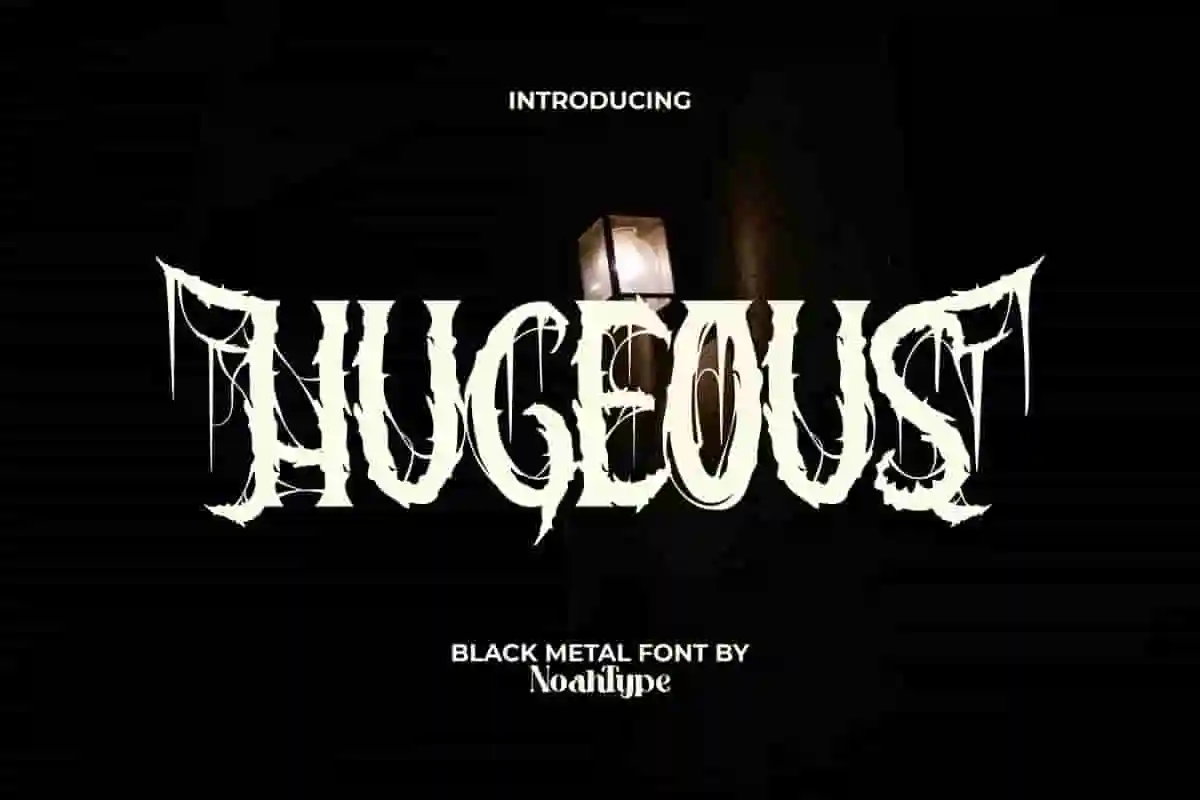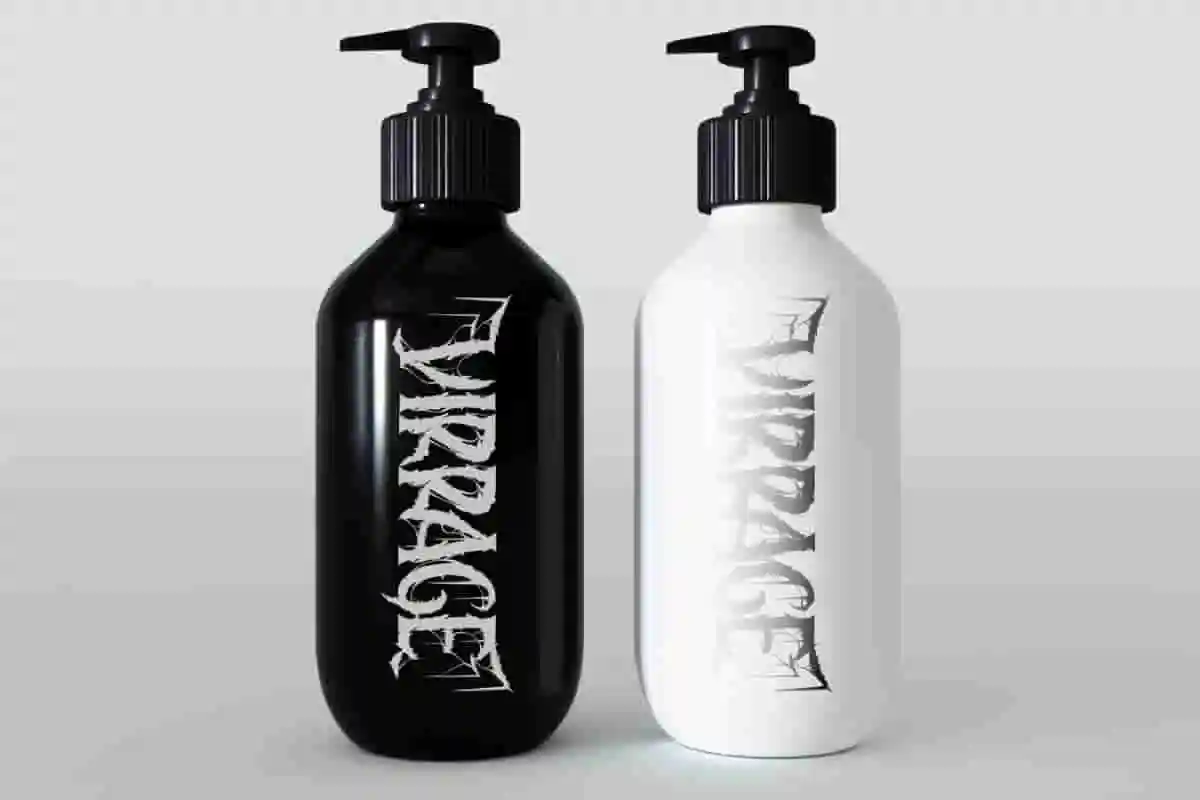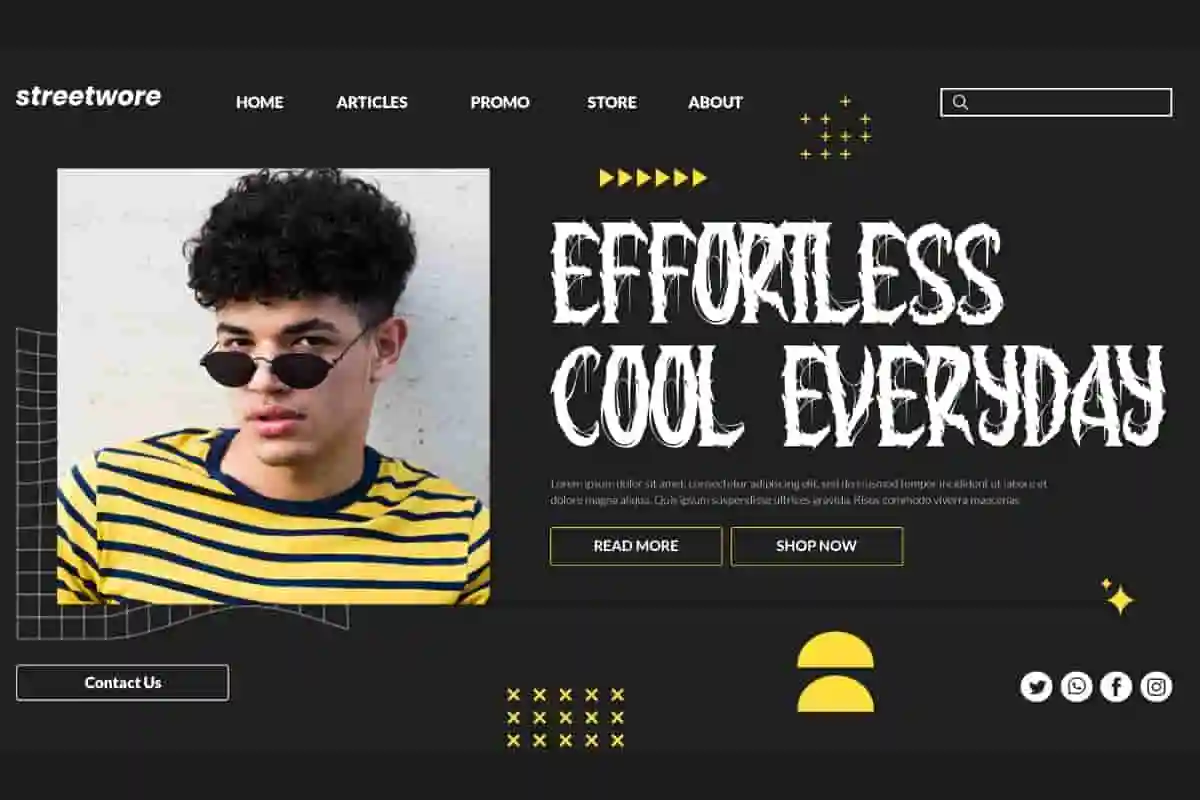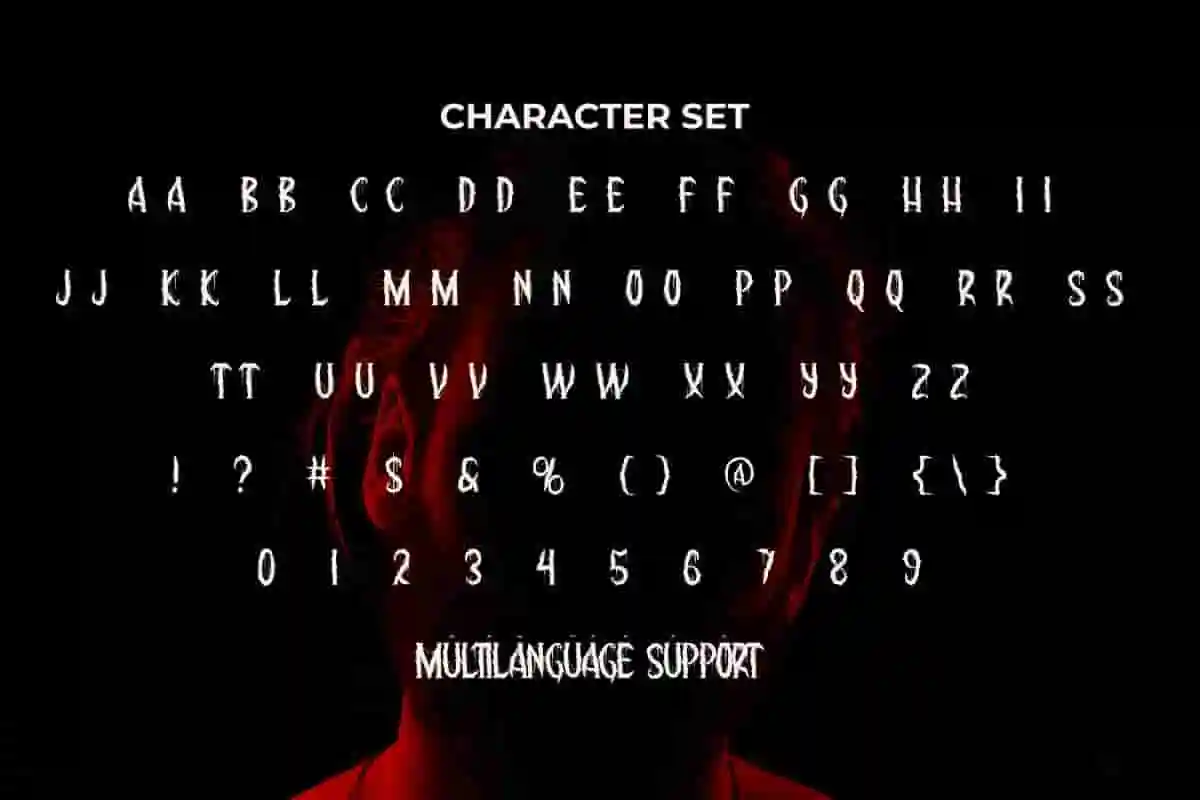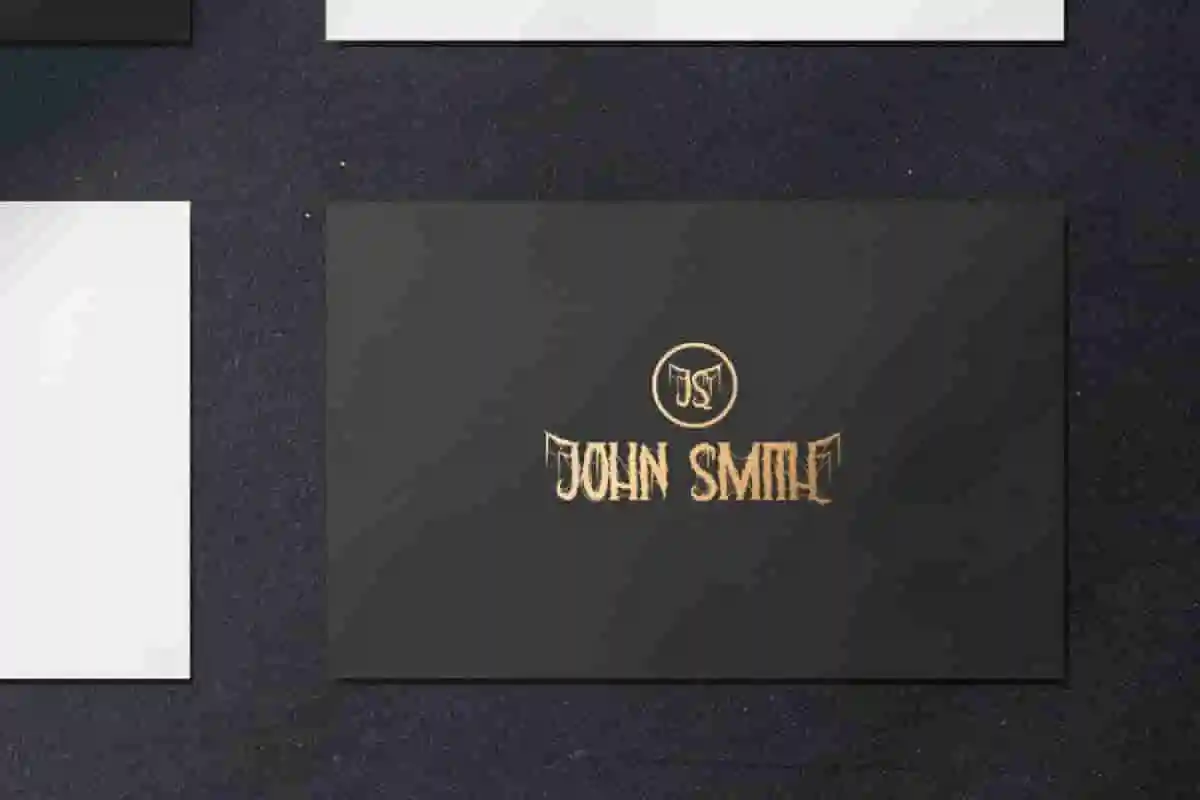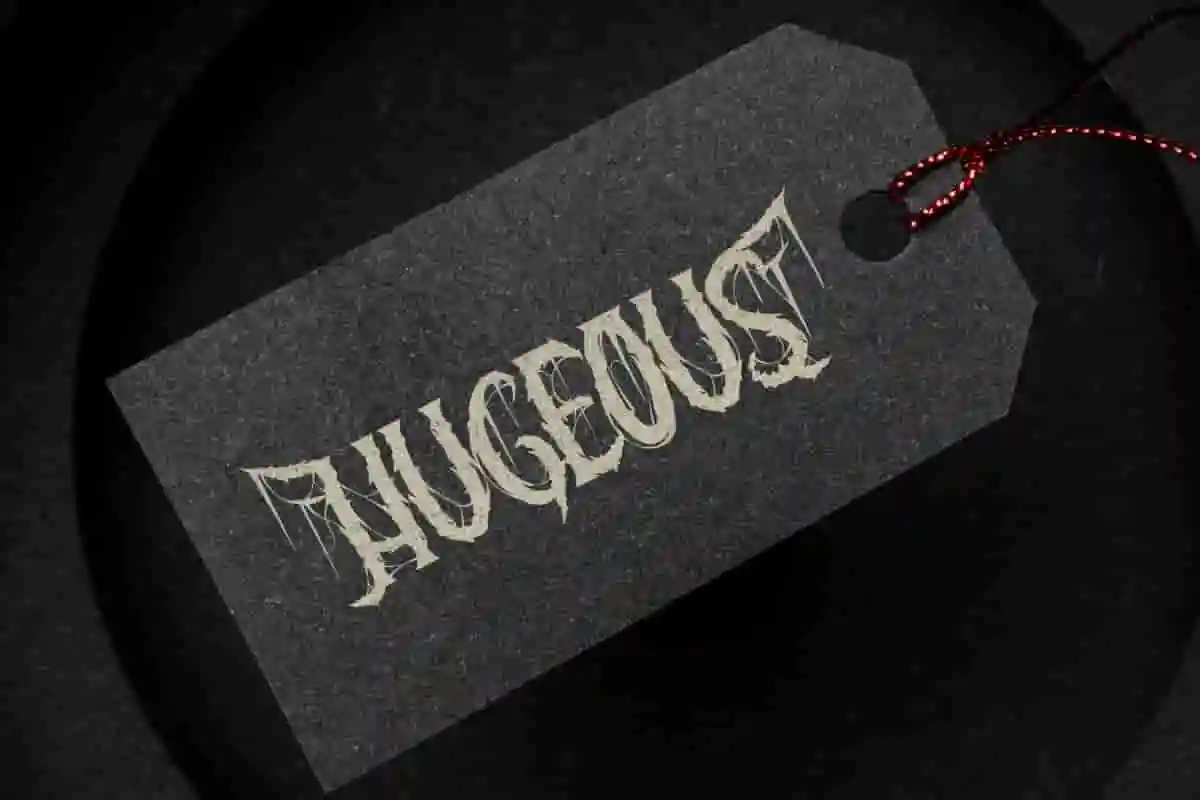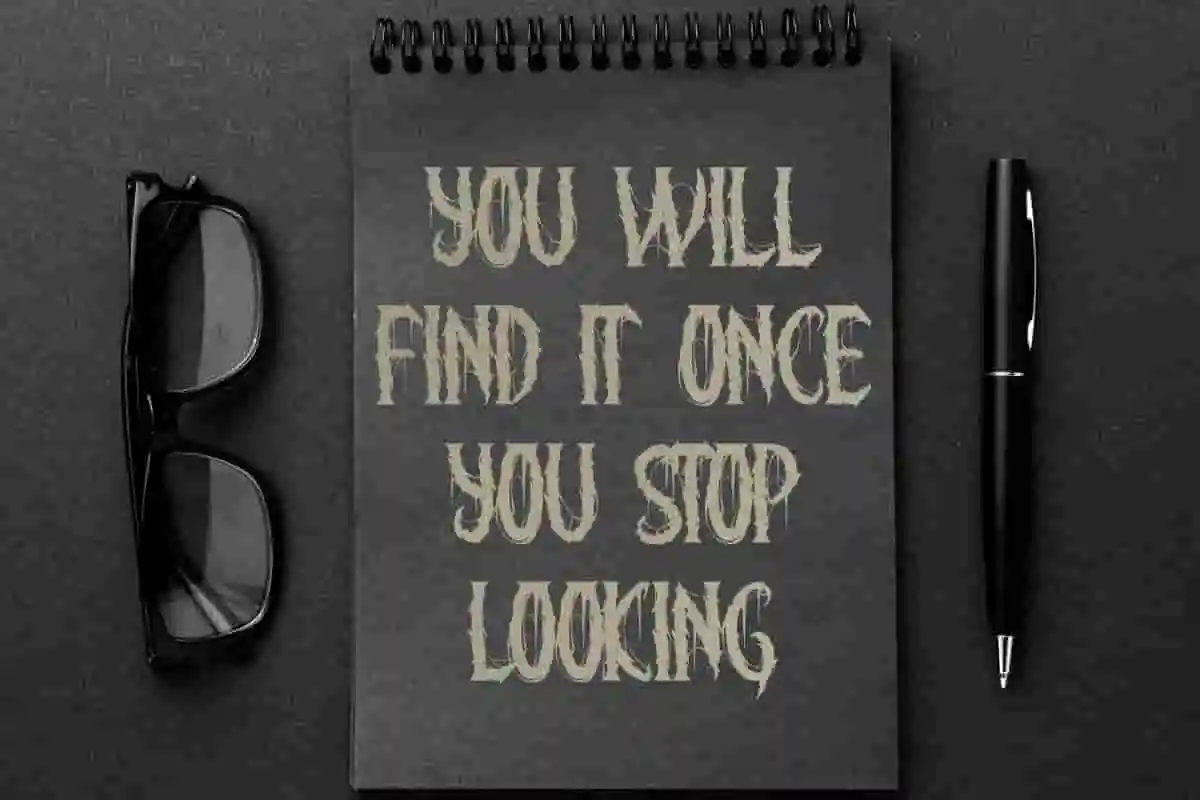
Hugeous Font is an odd horror black metal font. This font has a sharp line and edge with the addition of fine lines that resemble spider webs. It will be perfect for any designs, such as brand image, cover, custom design, invitation, label, marketing material, menu, poster, product packaging, quotes, signage, web, and many more!
Hugeous Font includes full set of ALL CAPS for Uppercase and Lowercase Basic Characters, Numerals, Punctuation and Symbol. The Alternate characters of this font will give amazing touch and also a perfect choice for many industries, such as accessories, advertising, art, café, event or festival, fashion, game, movie, printing, publishing, etc.